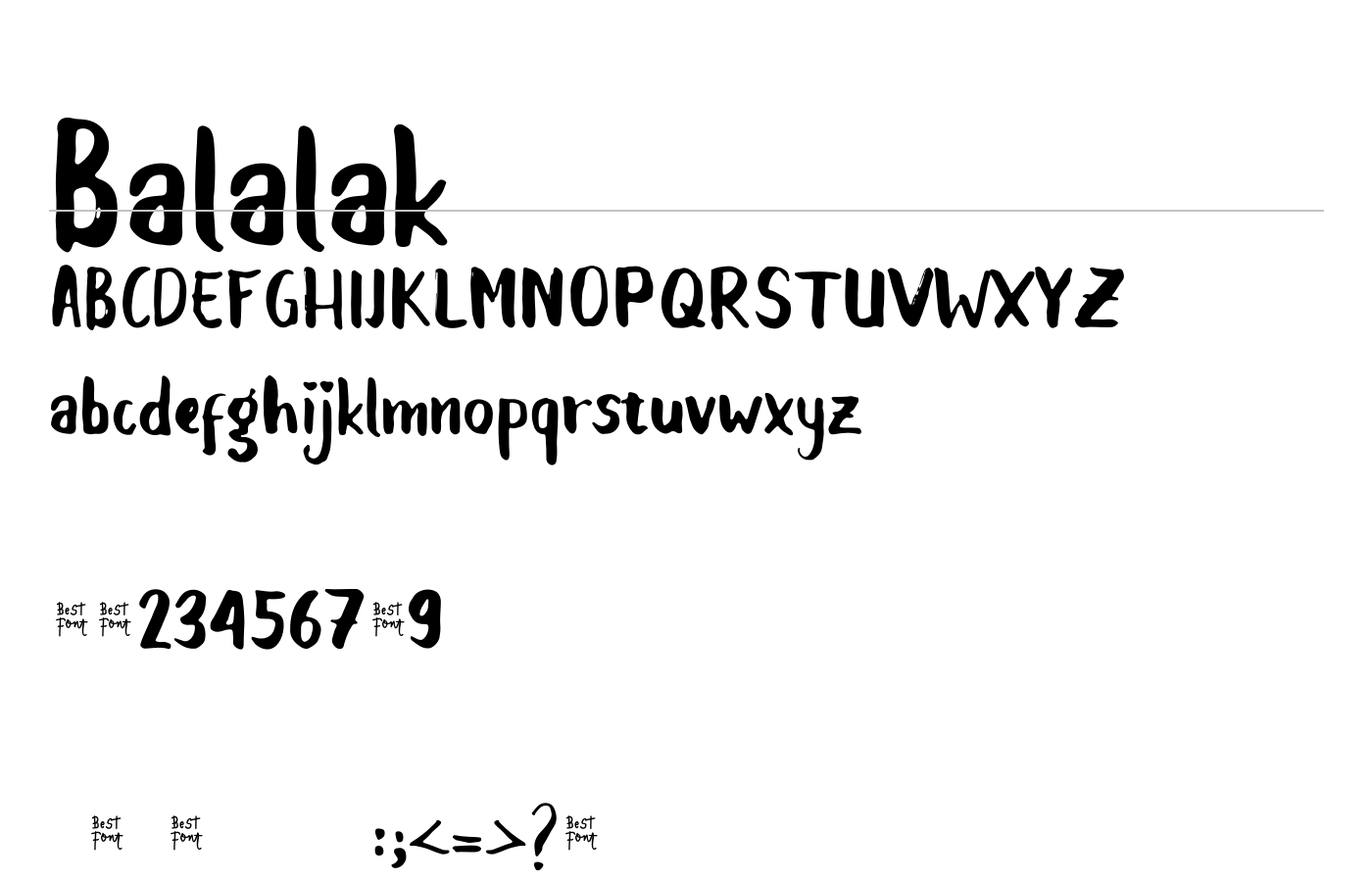
Balalak is a playful, casual sans serif font with a hand-drawn, organic feel. Its irregular stroke widths and slightly quirky letterforms give it a friendly and approachable personality, making it ideal for creative projects, children’s books, or informal branding. This font works well in headlines and display uses where a fun, personal touch is desired.
Balalak Font
About Balalak Font